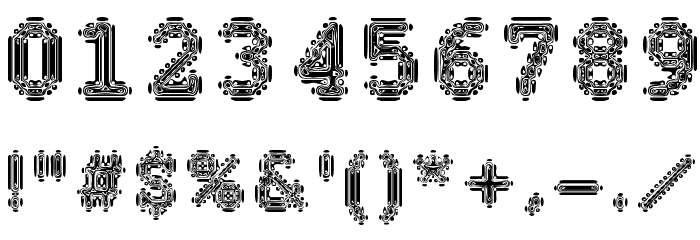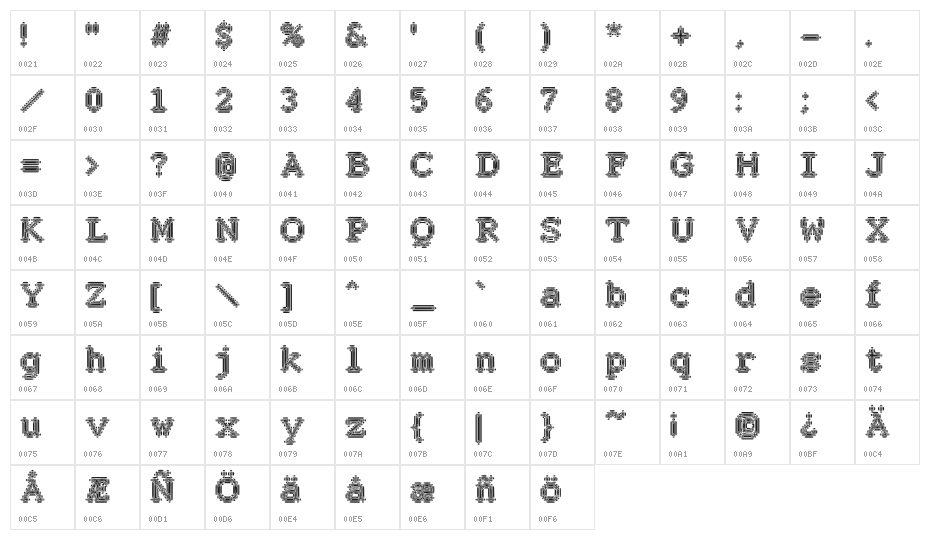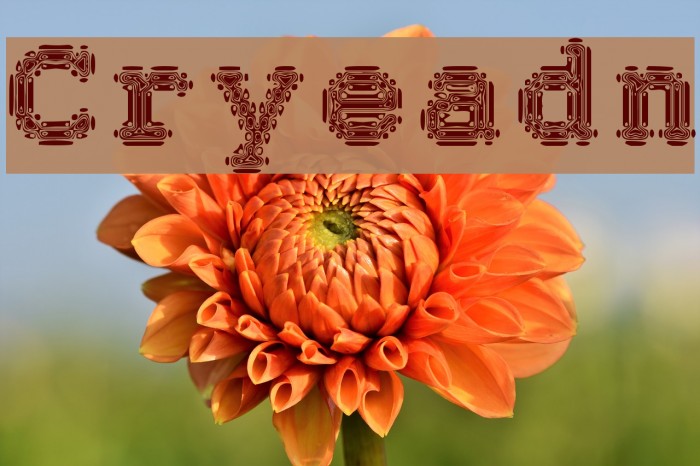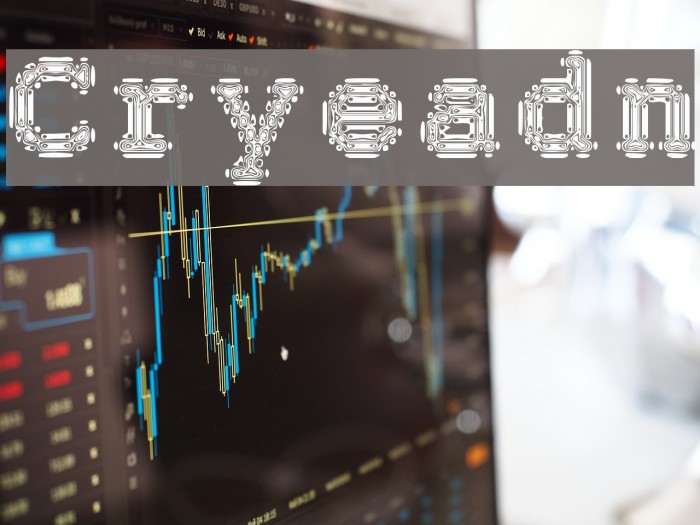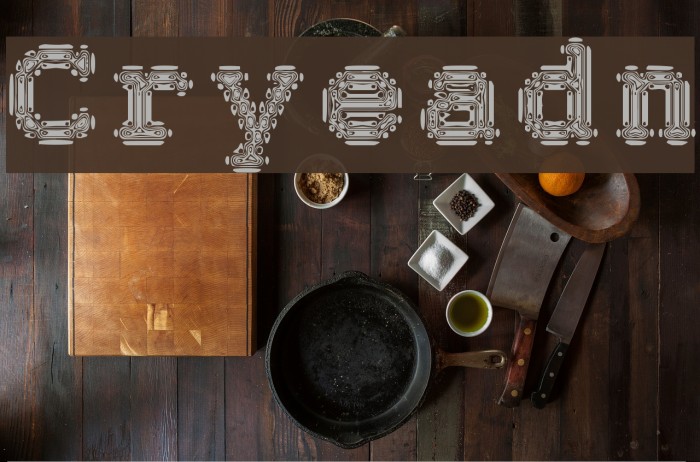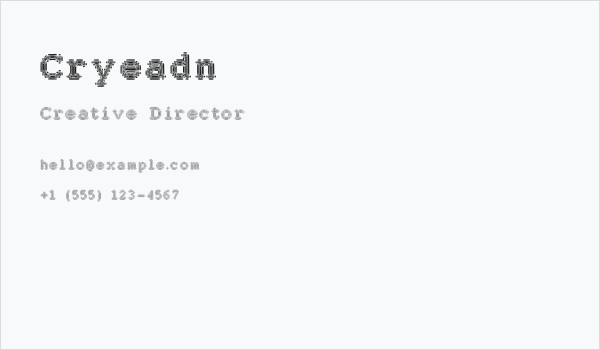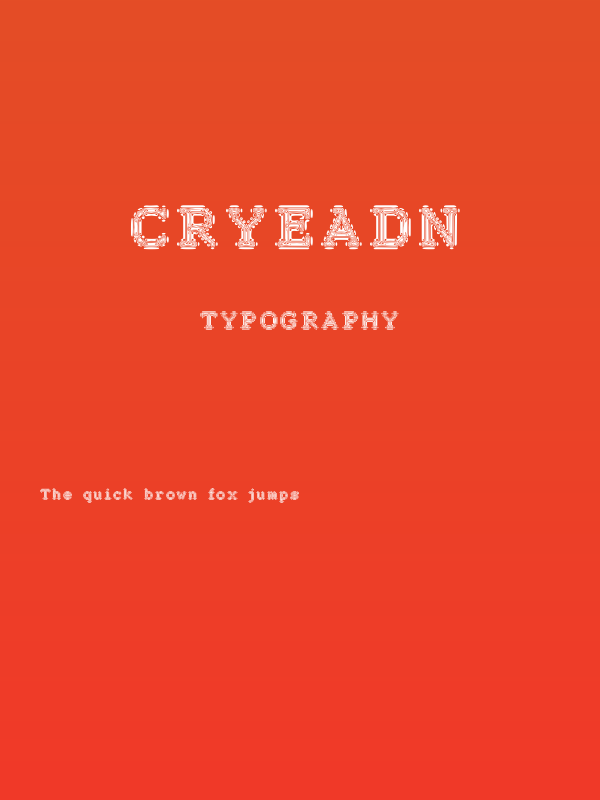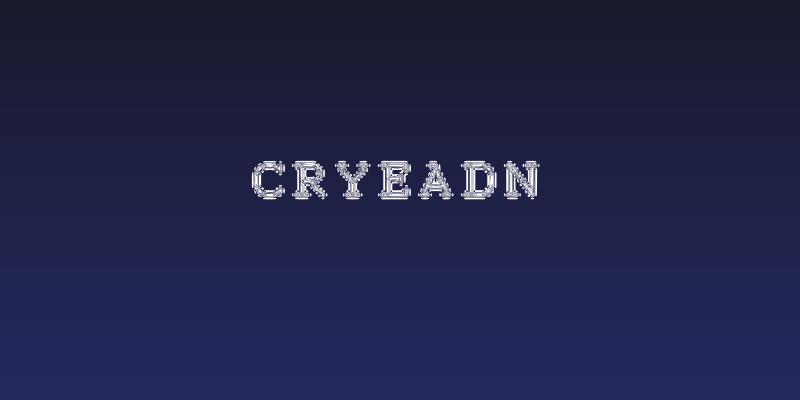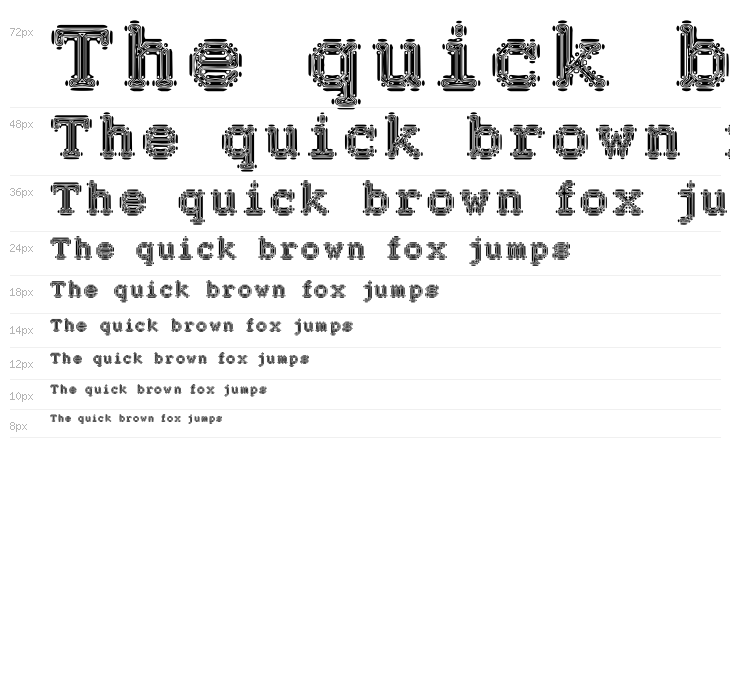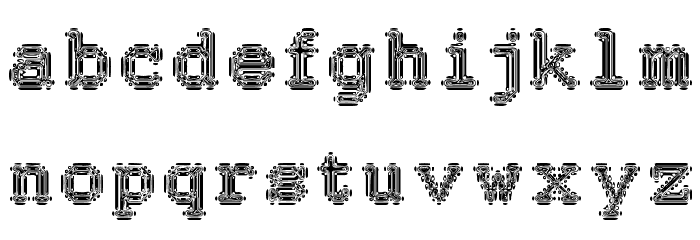
Cryeadn Font
Cryeadn Description
This font features a bold and decorative style with a unique outline effect that gives it a three-dimensional appearance. The characters are uppercase and lowercase letters, numbers, and a variety of special symbols. Each character is outlined with a thick, textured border that adds a sense of depth and complexity. The font's design is both eye-catching and playful, making it suitable for creative projects. The overall look is modern with a touch of whimsy, perfect for making a statement in any design.
| Proposed Projects | Ideal for posters, logos, headlines, and any design project that requires a bold and creative touch. |